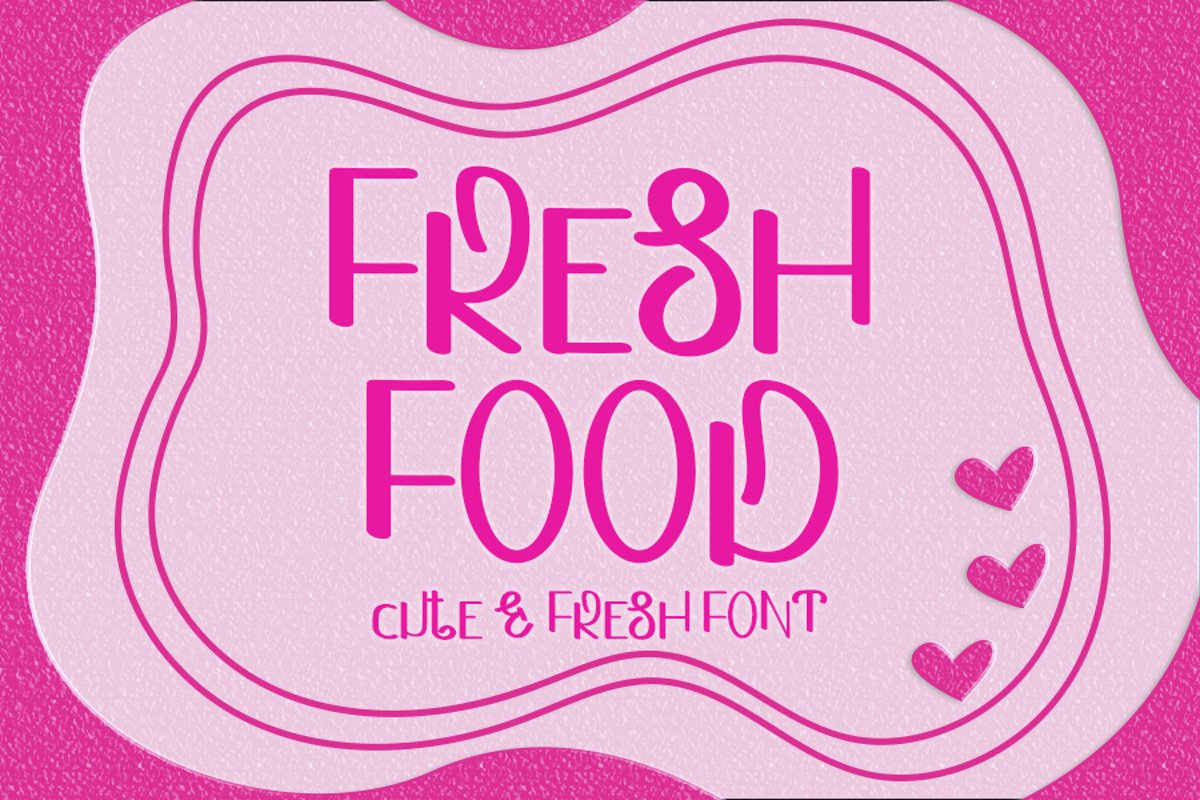
Fresh Food
FRESH FOOD
Fresh Food is a bouncy and friendly display font. This enchanting font will turn any creative idea into a true standout. Get creative with its unique playfulness, and use it to brighten up any crafting project!